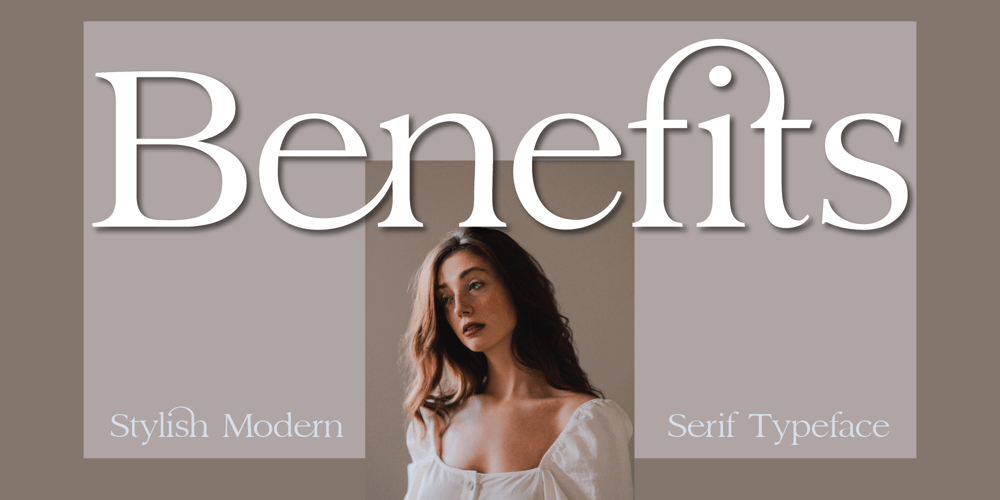
Benefits Font Family was designed by El Mehdi CHOUYOUKH and published by Mchcrafter. Benefits contains 1 styles and family package options. Benefits font โ a stylish OpenType rich serif with letters that seem to dance and twist harmoniously together โ to form unique & elegant typography designs.A large selection of interwoven Opentype ligatures and alternates, means ample selection and variety in your finished look.To access these OpenType features, you will need Opentype capable software such as : Word, Textedit, Photoshop, Sketch, Pages, Keynote, Numbers, iBooks Author, QuarkXPress, Indesign and Illustrator.A wide range of useful glyphs are included โ see preview image of all glyphs.Benefits includes: All uppercase & lowercase letters All numbers 0-9 & Punctuation Ligatures & Alternates Symbols Multiligual Letters